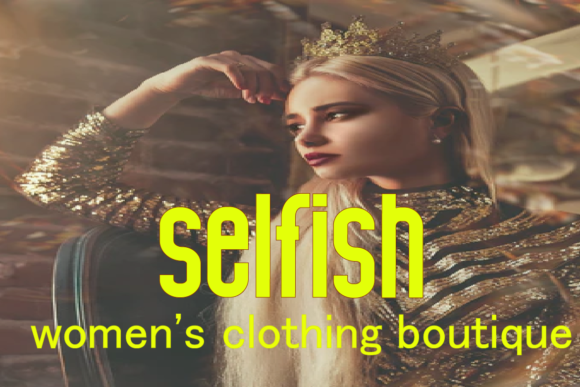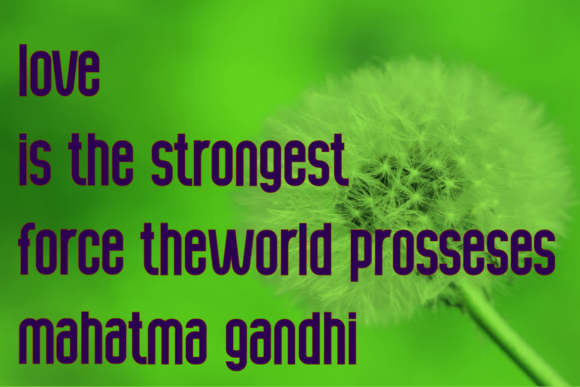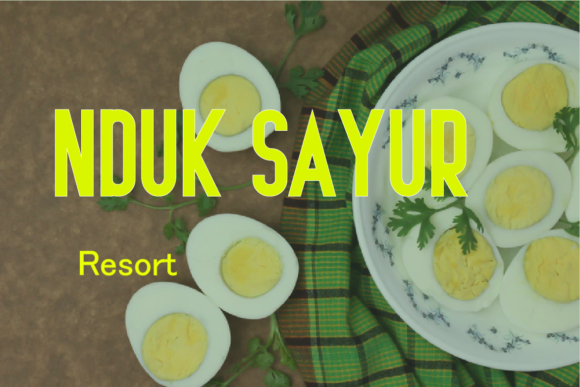
Ayopeguy Font: Elevate Your Designs with a Modern Twist
Have you ever been stuck on a design project, staring at a blank canvas, unsure of where to start? We’ve all been there. But sometimes, all it takes is a small spark to set our creative juices flowing. For designers, finding the right font can be that spark. Enter Ayopeguy Font, a simple and modern sans serif font that’s about to become your new go-to.
Ayopeguy Font is designed to be versatile, making it easy to match with a wide range of projects. Whether you’re working on a logo, brochure, or website, this font is sure to elevate your design and make it stand out. As a designer, you know how valuable a great font can be. It’s not just about aesthetics; a well-chosen font can convey tone, personality, and professionalism. With Ayopeguy Font, you can trust that your designs will make a lasting impression.
Ayopeguy Font Key Features
- Font Family: Ayopeguy Font is a unique, modern sans-serif font designed for digital use.
- Character Set: Includes a wide range of characters, including Latin, Cyrillic, and Greek alphabets, making it suitable for multi-lingual designs.
- Size: The font is available in 7 weights, ranging from Light to Black, offering flexibility for various design needs.
- Resolution: Optimized for high-resolution displays, ensuring crisp and clear rendering on screens and print materials.
- Unique Characteristics: Ayopeguy Font features a distinctive, rounded sans-serif design with a friendly and approachable feel, making it ideal for branding, advertising, and editorial content.
Ayopeguy Font Review
I recently had the chance to work with the Ayopeguy Font, and I must say it’s been an interesting experience. Here are my thoughts on what works well and what doesn’t.
- ✨ Unique and quirky design: The Ayopeguy Font has a distinctive, hand-drawn feel that’s perfect for adding a touch of whimsy to your designs.
- ✨ Great for creative projects: This font is ideal for designers who want to create eye-catching, attention-grabbing materials for projects like posters, flyers, and social media graphics.
- ⚠️ Limited legibility: At smaller font sizes, the Ayopeguy Font can become difficult to read, making it less suitable for body text or long blocks of text.
The Ayopeguy Font is a fun, creative option for designers who want to add some personality to their work. While it’s not suitable for every project, it’s a great choice for those who want to create bold, eye-catching materials. Just be mindful of its limitations and use it in the right context.
To get the most out of the Ayopeguy font, use it for:
- Blog posts and articles
- Brand identity and logos
Remember to use the font in moderation and balance it with other fonts to avoid overwhelming your design.